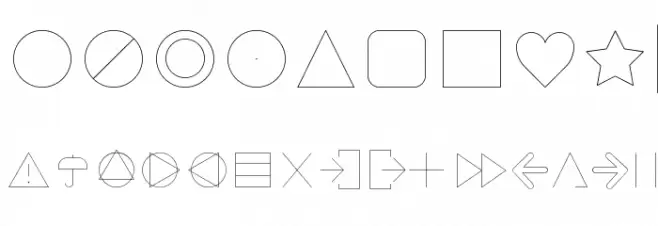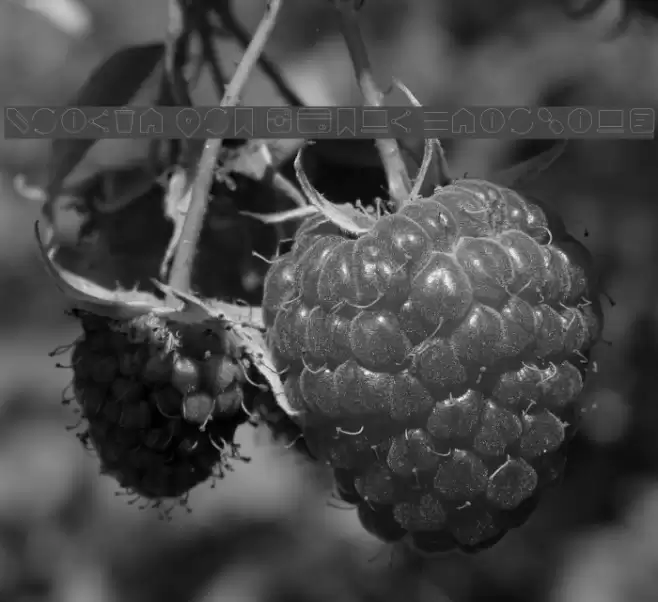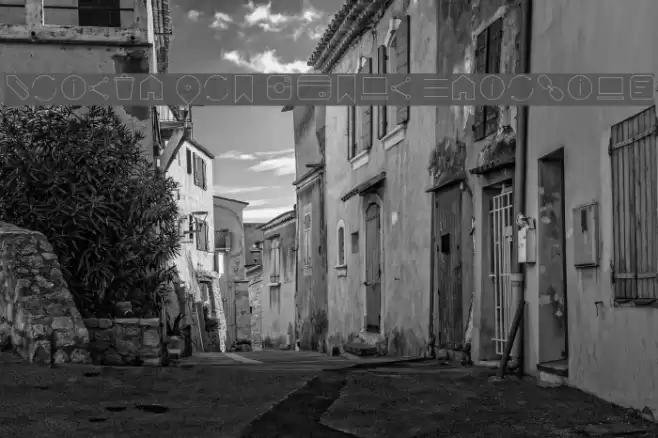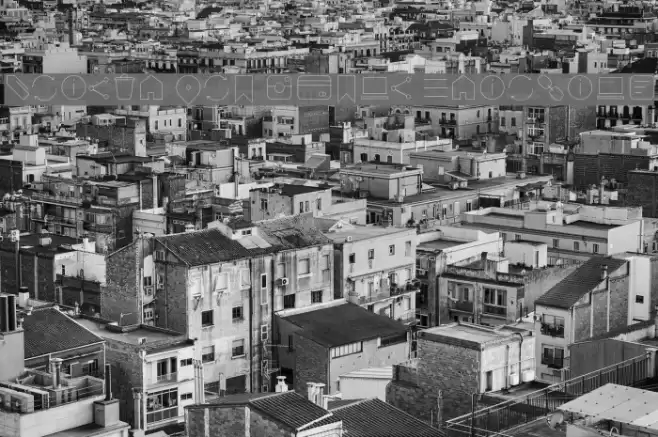
Arista Pro Icons Hairline Font
Arista Pro Icons Hairline Description
A set of ultra-thin, geometric line icons with consistent stroke weight, rounded corners, and minimalistic design, suitable for modern digital interfaces.
Minimal, hairline-weight geometric icon set from Uncategorized fonts.
- Font: Arista Pro Icons Hairline
- Proposed Projects: Mobile apps, web UI, dashboards, wireframes, presentations.
- Weight: Light
- Overall Style: Modern, Minimalist
- Use Case: Icons for interfaces, buttons, toolbars, navigation.